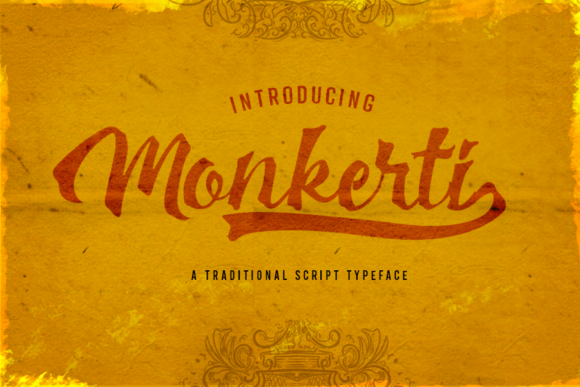
Journey back in time with Monkerti Font's captivating script strokes, embodying the charm and elegance of yesteryear. This exquisite handwritten font exudes a timeless appeal, seamlessly infusing your designs with a touch of vintage nostalgia. Each character dances across the page with a playful spirit, reminiscent of cherished letters penned by hand. Unleash your creativity and let Monkerti's unique aesthetic transport you to a bygone era.
Handcrafted with precision, Monkerti Font's intricate details evoke a sense of authenticity and warmth. Its flowing lines and delicate swashes add a personal touch to your projects, inviting viewers to immerse themselves in the charm of the past. Whether you're crafting logos, branding materials, wedding invitations, or social media posts, Monkerti's versatility captivates and inspires.
Immerse yourself in the beauty of Monkerti Font's timeless design. Its vintage aesthetic adds a nostalgic elegance to any project, evoking a sense of history and warmth. This handwritten font breathes life into your words, transforming them into works of art. From heartfelt letters to eye-catching marketing campaigns, Monkerti's unique charm leaves a lasting impression.
Embrace the magic of Monkerti Font and elevate your designs to new heights. Its nostalgic charm and impeccable craftsmanship create an unforgettable experience that resonates with audiences. Let Monkerti be your creative partner, guiding you on a journey through time and adding a touch of enchantment to every project you undertake.